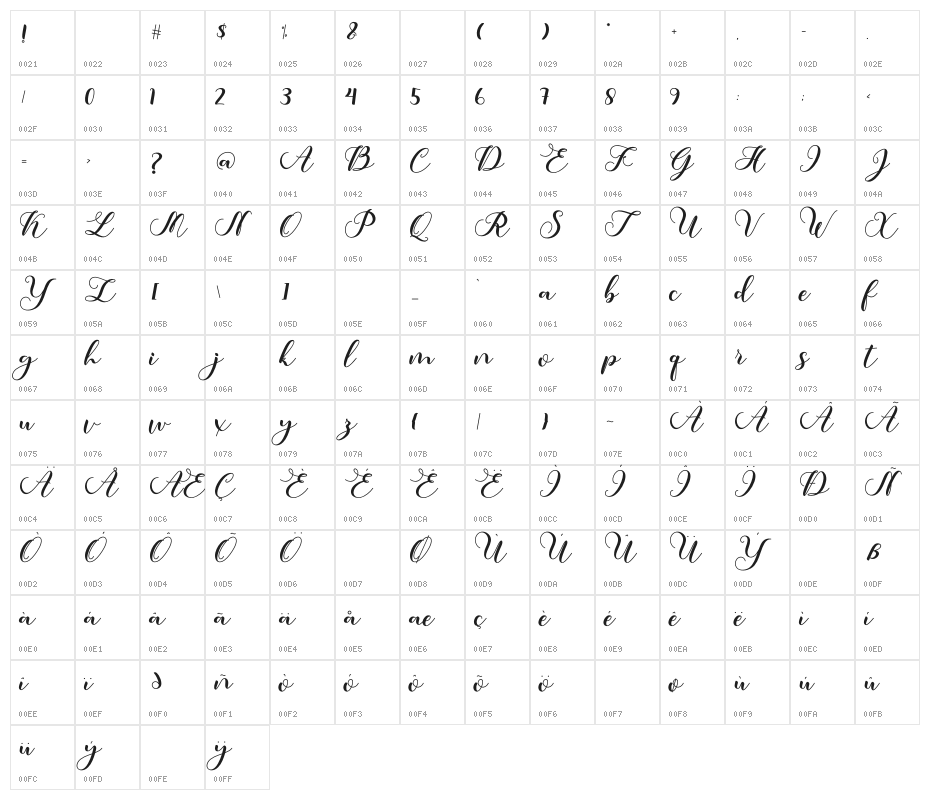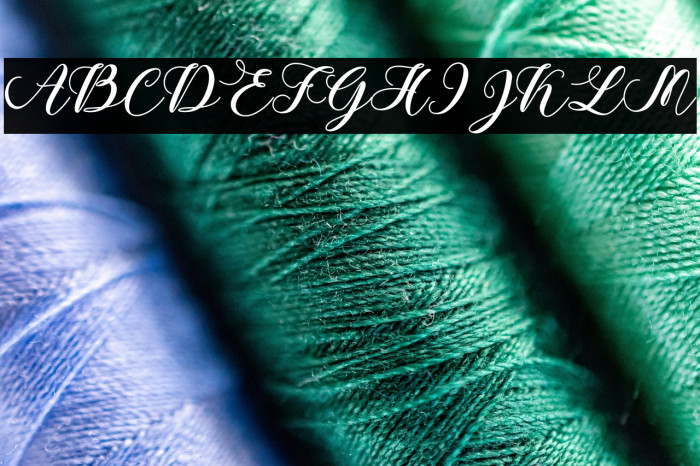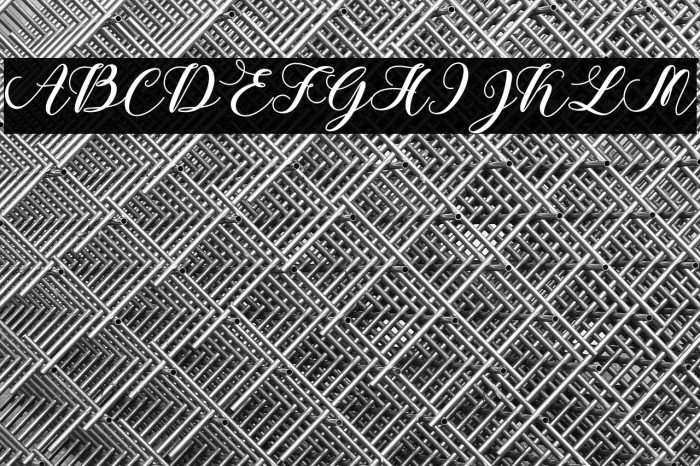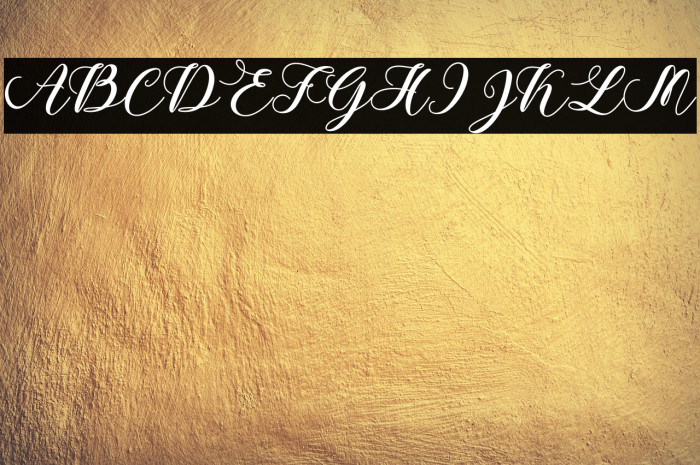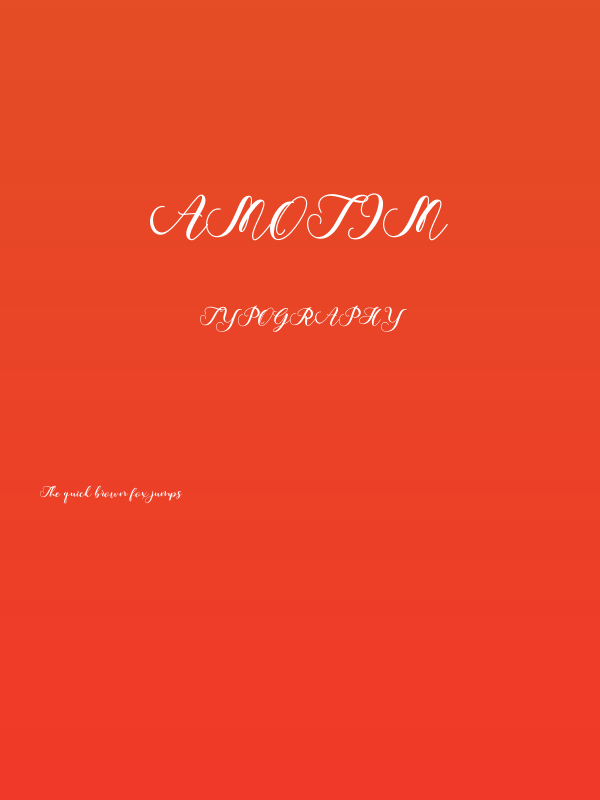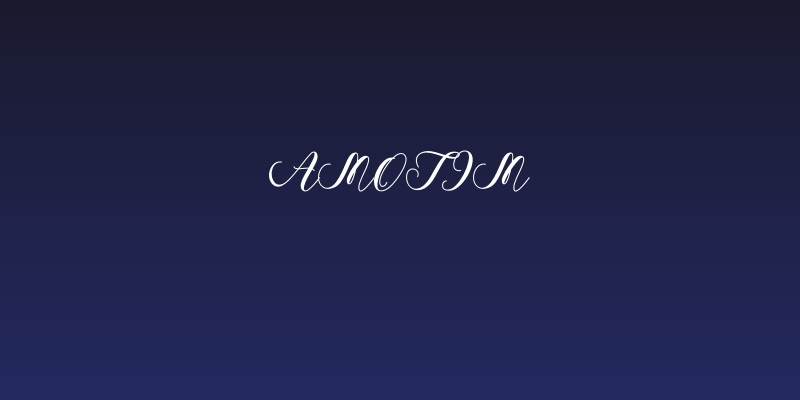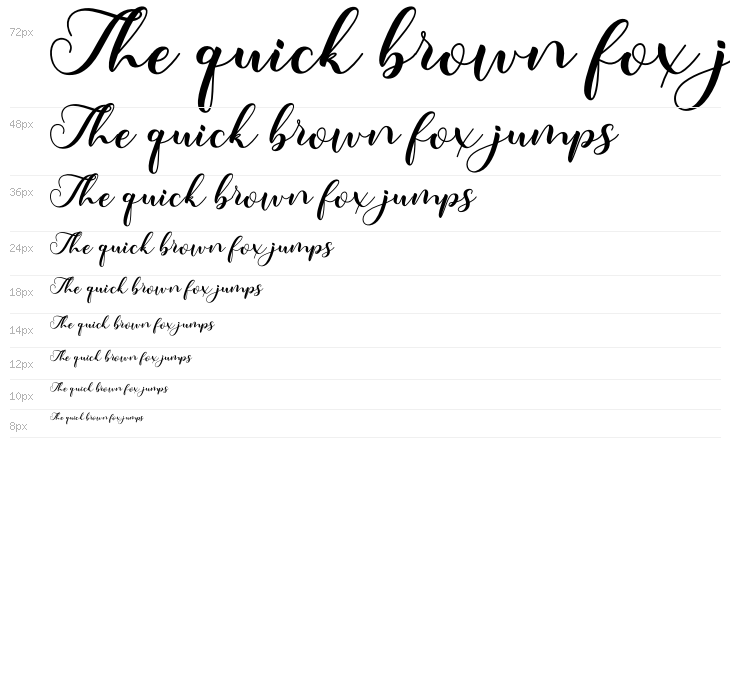
amotim Font
amotim Description
This elegant script font features flowing, cursive letterforms that exude a sense of sophistication and grace. The uppercase letters are intricately designed with delicate loops and swashes, while the lowercase letters maintain a smooth, connected style. The numerals are bold and slightly more structured, providing a nice contrast to the fluidity of the letters. Special characters are thoughtfully crafted to match the overall aesthetic, making this font versatile for various design needs. Its high contrast in stroke thickness adds to its dramatic and eye-catching appeal.